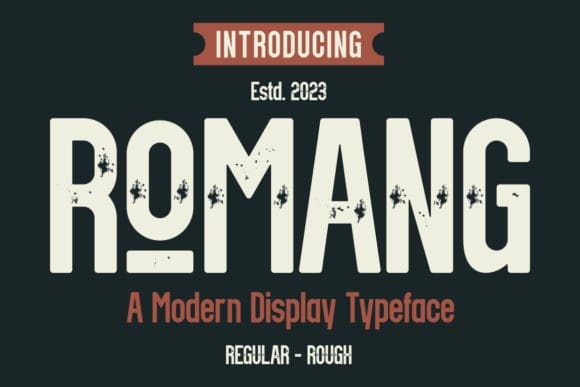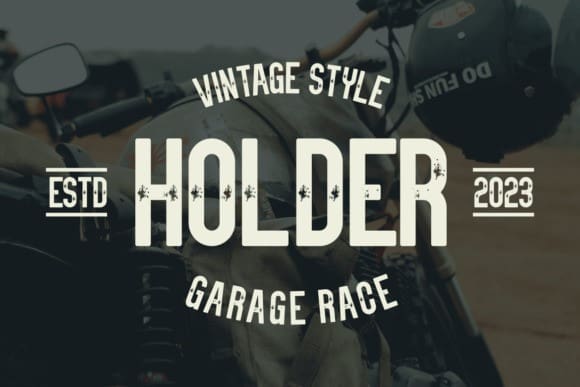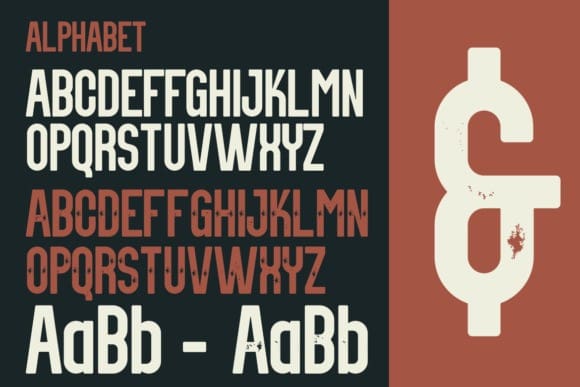
Romang Font
Romang Font, your go-to choice for a modern display font. With sleek lines and contemporary flair, Romang adds a touch of sophistication to any project. Ideal for headlines, titles, and impactful design elements, this font effortlessly combines simplicity with a stylish edge. Elevate your visual content with Romang’s modern aesthetic, ensuring a clean and trendy look for all your creative endeavors.